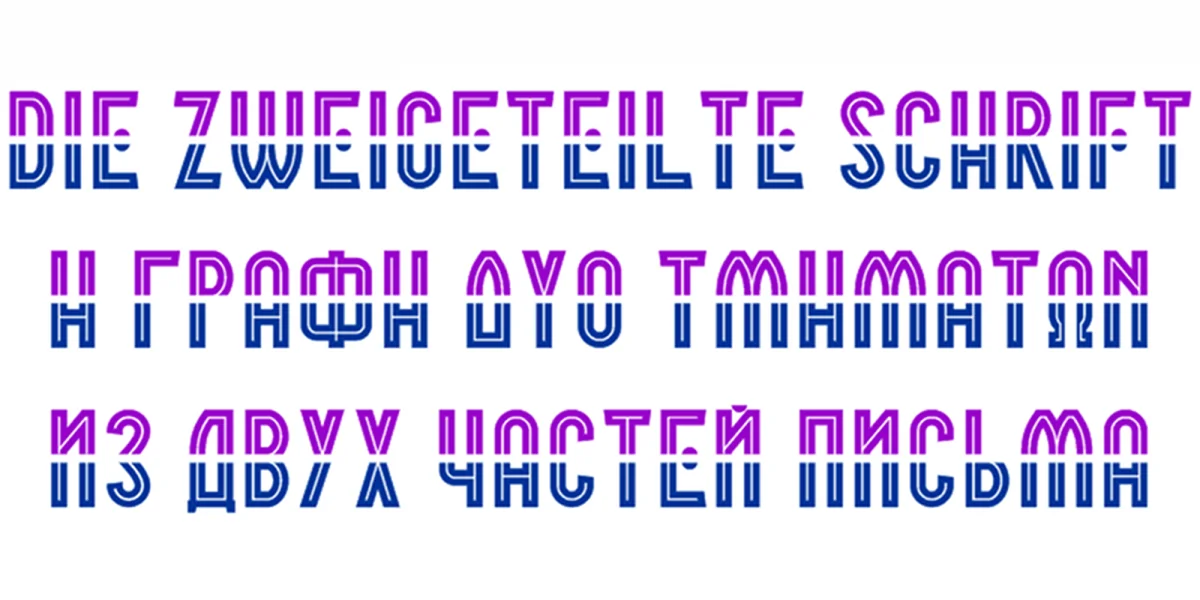
Translated from the original German description: Border Control is based on Spanish letters from the 1930s, which (just about 35) of each Latin characters and digits and punctuation marks made significant settable with only a few different figures each have 2 lines of text. Here, the letters were rotated were set for the second text line by 180 °. Thus arises for example in the top row two times the I-half set, and just below the rotated O-half then a U, or just in the top row half (upper) B with the bottom row half (lower) K then an R, or you swap the respective lower and upper half of a Cyrillic Yes. This combine is so conveniently not necessarily in a computer font, so I've still a few different forms of the letters, numbers, and symbols and punctuation characters that zugeordnet.Trotzdem they can also be who you want to combine the unusual characters.
And as already can be covered with the original characters, much of the Greek and Cyrillic letters, I have not covered thereby forms additionally included, and expanded as the linguistic coverage of the font considerably.